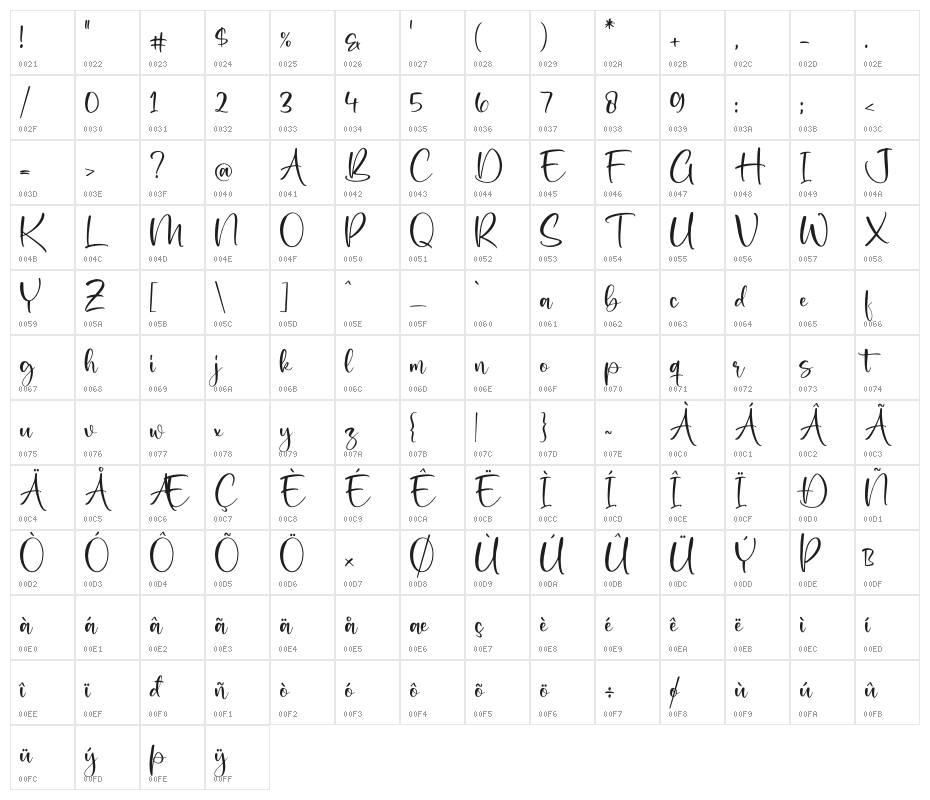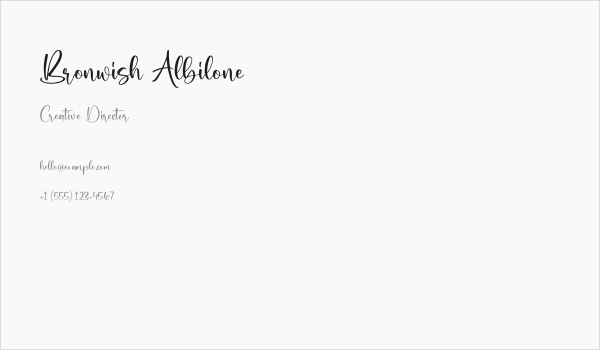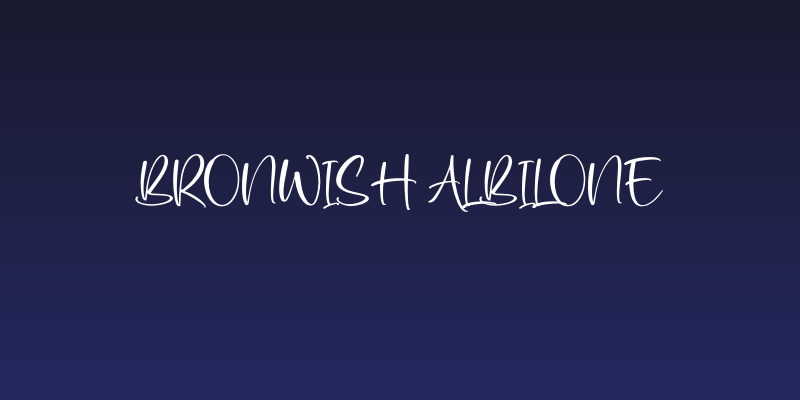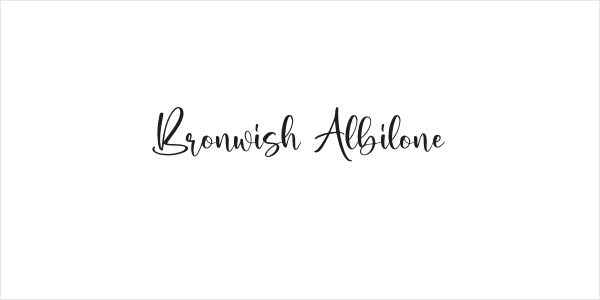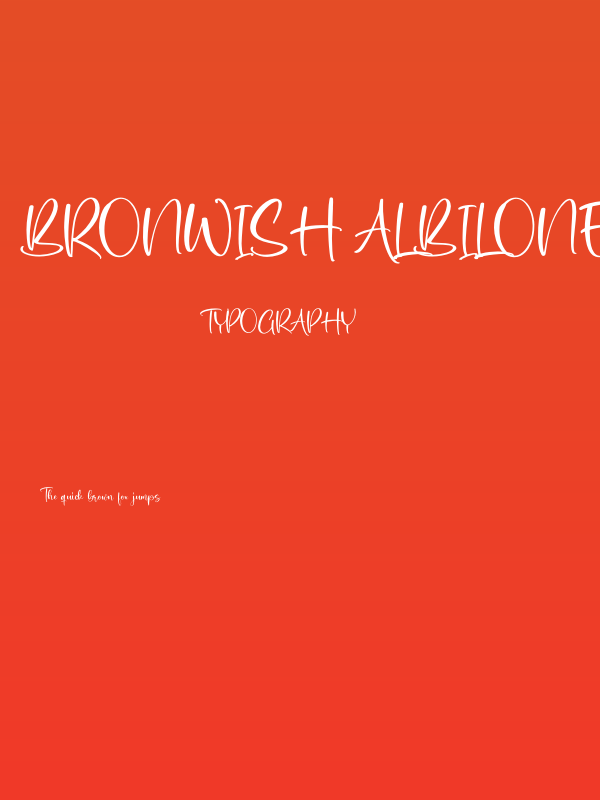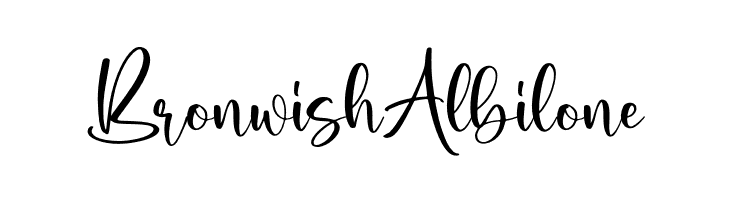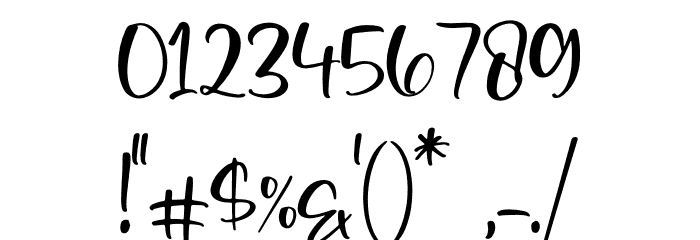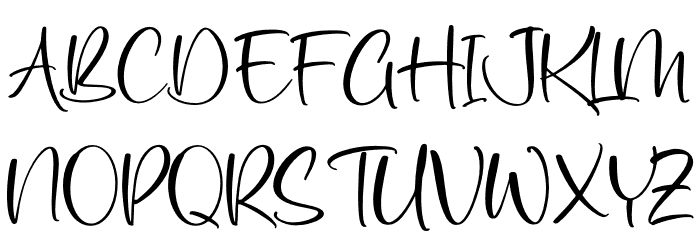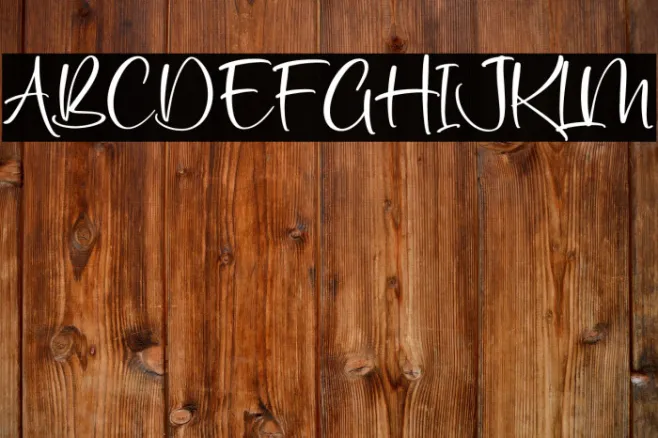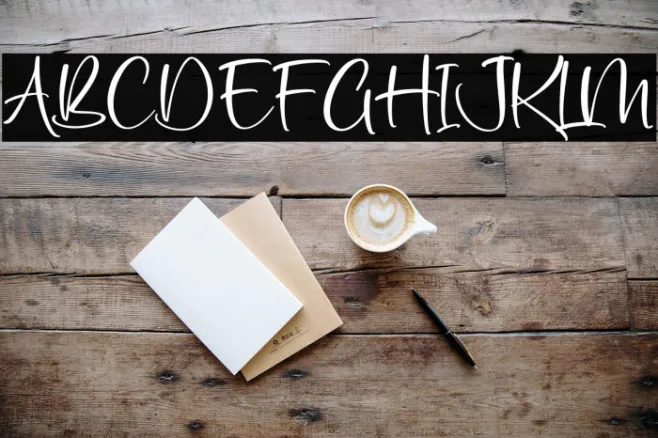
Bronwish Albilone Font
Bronwish Albilone Description
A flowing, handwritten script font with playful, looping strokes and a casual, modern feel. The characters are slightly irregular, mimicking natural handwriting, with moderate contrast in stroke thickness and generous ascenders and descenders.
| Overall Style | Decorative, Modern, Playful |
| Use Case | Logos, Invitations, Headlines, Social Media |
| Proposed Projects | Wedding invitations, greeting cards, branding, social media graphics, personal notes. |